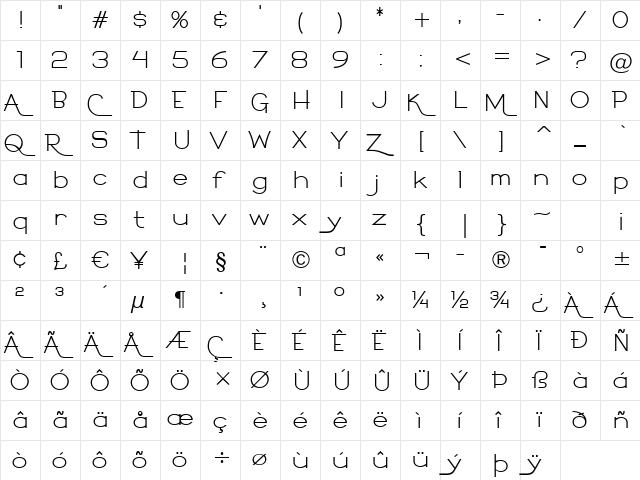
Calamity Teen BTN Regular
Design Context for Calamity Teen BTN Typeface
Calamity Teen BTN offers clean, dependable letterforms without strong stylistic allegiance, making it a practical choice for designers who need flexibility.
Pro Tip: Use Calamity Teen BTN in both headline and body roles to test its range before committing to a single application.